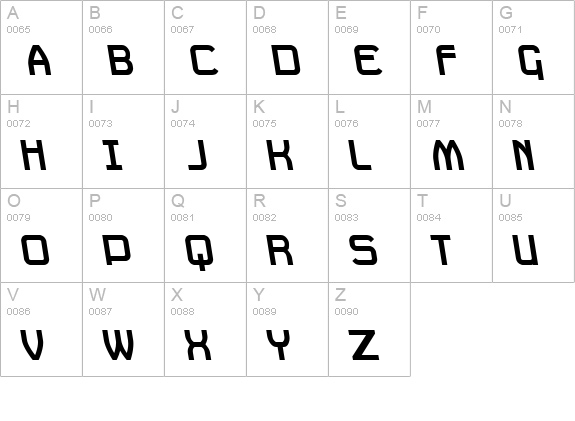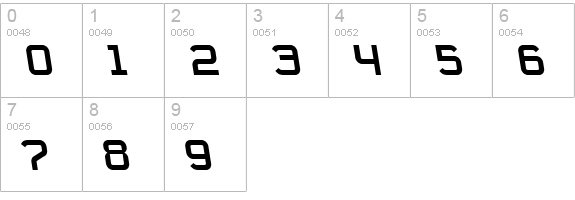
Daville Rev Slanted Font Details
Daville Rev Slanted font is a modern and stylish typeface that exudes creativity and sophistication. With its unique slanted design, this font adds a touch of elegance to any project or design. The sleek lines and sharp angles of Daville Rev Slanted font make it perfect for logos, branding, headlines, and more. Best of all, Daville Rev Slanted font is available for free download at FontsMarket.com. This means you can easily incorporate this stunning font into your projects without any cost. Don't miss out on the opportunity to enhance your designs with the striking Daville Rev Slanted font - download it today and take your creations to the next level!